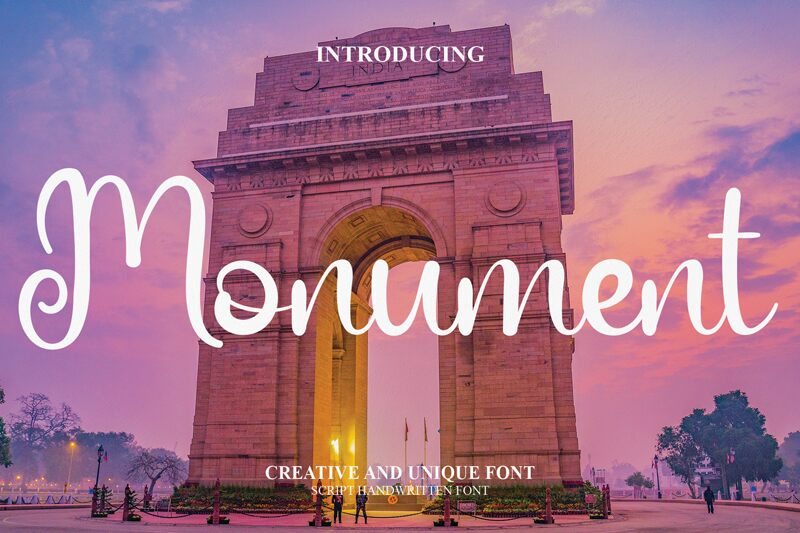
Monument
Monument, crafted by Belina Studio, is a stunning semi-light font that exudes the charm of lovely handwritten script. With its flowing strokes and gentle curves, it's perfect for a wide range of projects that call for elegance and sophistication. This versatile typeface is ideal for wedding invitations, greeting cards, branding materials, logos and more - anything that requires a touch of refined style. Whether you're creating an eye-catching poster or designing an exquisite website header, Monument will add a touch of class and grace to your work. Try it out today and bring your designs to life with this stunning font!
the latest style letters are perfect for wall displays, wedding invitations, social media post logos, advertisements, product packaging, product designs, labels, photography, watermarks, invitations, stationery, and any project that requires taste handwriting.